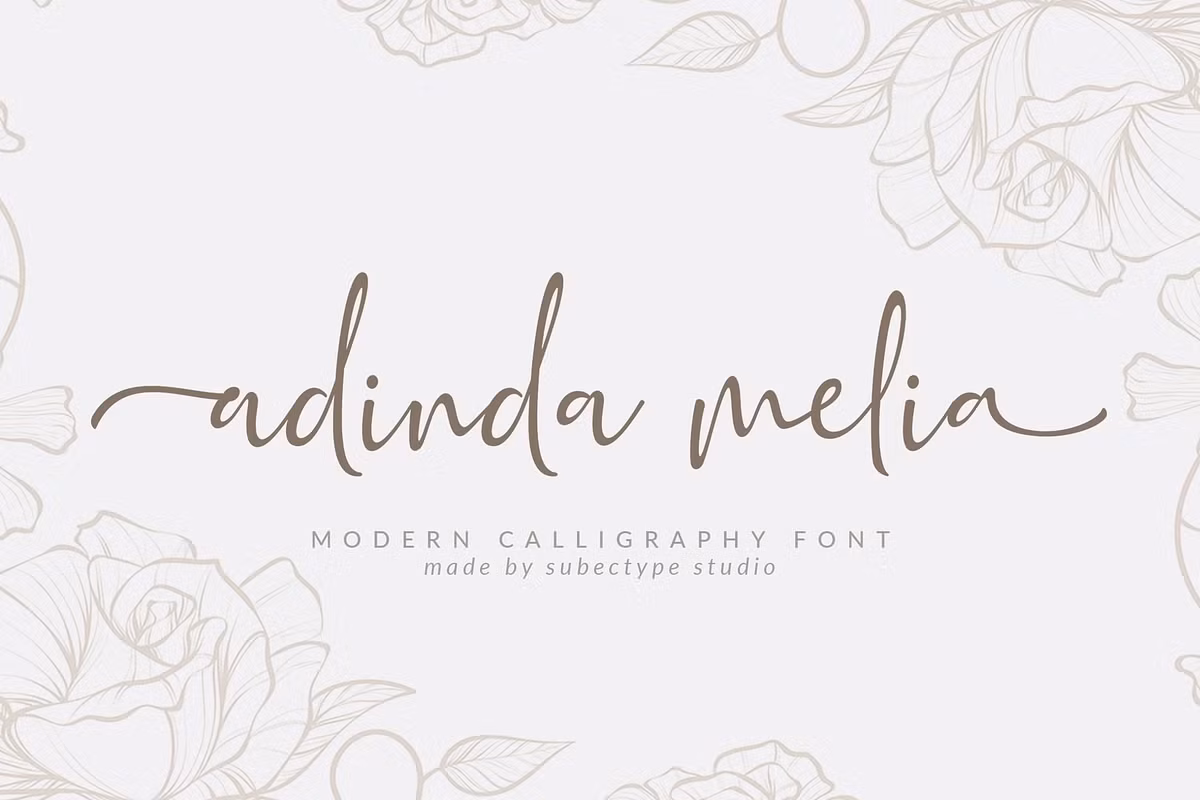
Adinda Melia Font / Calligraphy Free Download
Bring elegance and sophistication to your designs with Adinda Melia Font / Calligraphy Free Download. This beautifully crafted calligraphy font features graceful, flowing letterforms with a unique blend of modern and classic calligraphy styles. Perfect for wedding invitations, logos, branding, greeting cards, and any project that requires a refined, personal touch.
Adinda Melia’s smooth, organic curves add a touch of luxury and charm to your typography, offering a perfect balance of elegance and readability. It includes uppercase and lowercase letters, numerals, punctuation, and multilingual support, making it versatile for a wide range of creative projects.